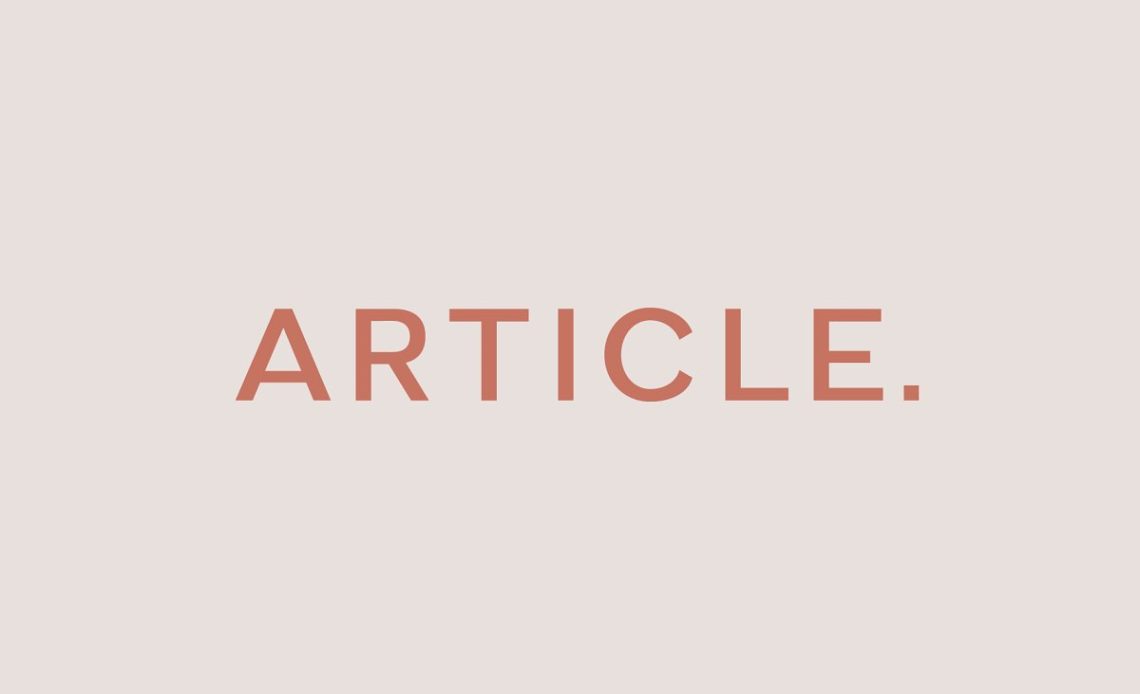
Introducing Article - A Geometric Typeface, the font family that will revolutionize your design game! Created by the talented Cassandra Cappello, Article is the ultimate choice for those seeking the best fonts for bold headings.
With its modern and geometric aesthetic, Article brings a touch of personality to any project. Whether you're crafting eye-catching headers or engaging body copy, this sans serif typeface has got you covered. Its versatility knows no bounds!
But what truly sets Article apart is its extensive character set. Say goodbye to limitations and hello to endless creative possibilities. This font family includes all Latin characters, including accents, numbers, special characters, and punctuation. No matter the language or symbol you need, Article has got your back.
Prepare to be captivated by Article's undeniable charm and versatility. Its clean and sleek lines will elevate your design to new heights, leaving a lasting impression on your audience.